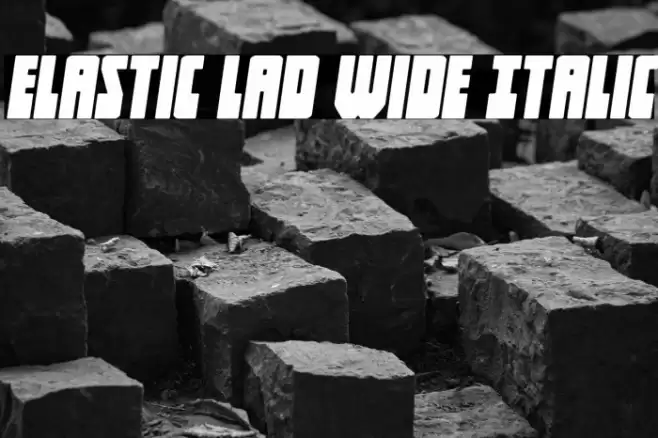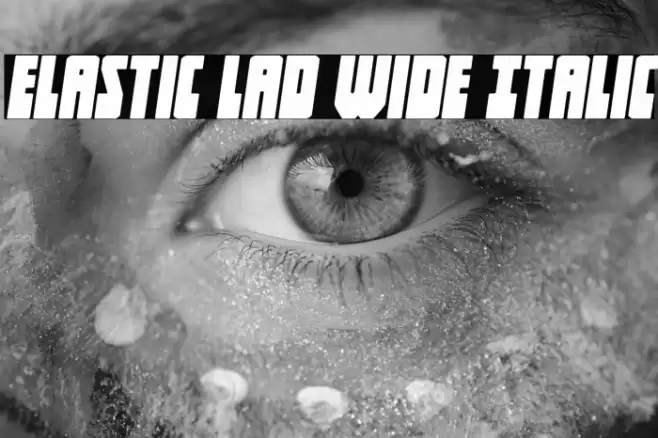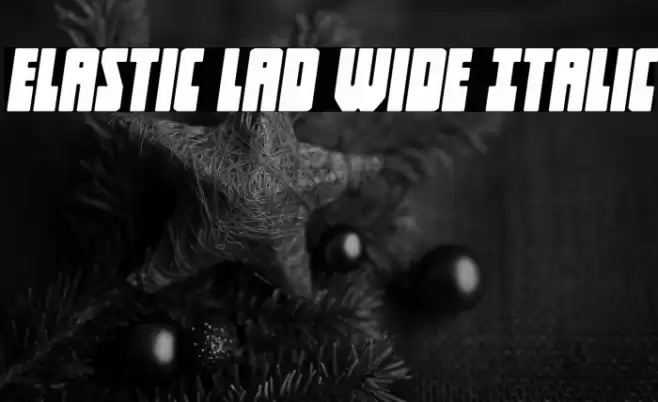
Elastic Lad Wide Italic Font
Elastic Lad Wide Italic Description
This font features a bold and wide design with a distinct italic slant, giving it a dynamic and energetic appearance. The characters are heavily weighted, providing a strong visual impact. The wide letterforms are consistent throughout, creating a cohesive look. The italic angle adds a sense of motion and modernity, making it suitable for attention-grabbing headlines and statements. The font includes a full set of uppercase and lowercase letters, numbers, and a variety of special characters, ensuring versatility in design applications.
Bold, wide, and italic with a modern, dynamic style from Uncategorized fonts.
- Proposed Projects: Ideal for sports branding, dynamic posters, and modern advertising campaigns.